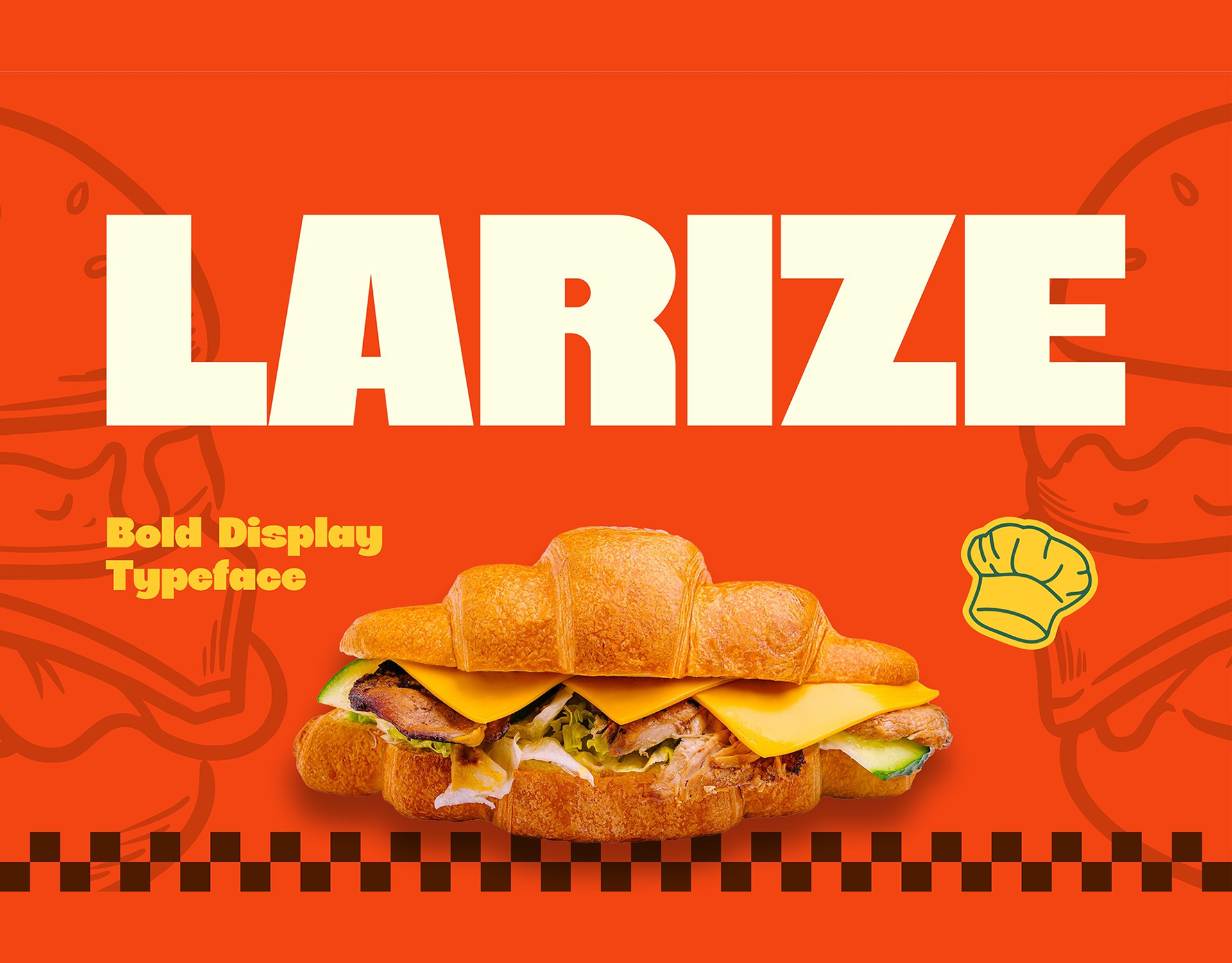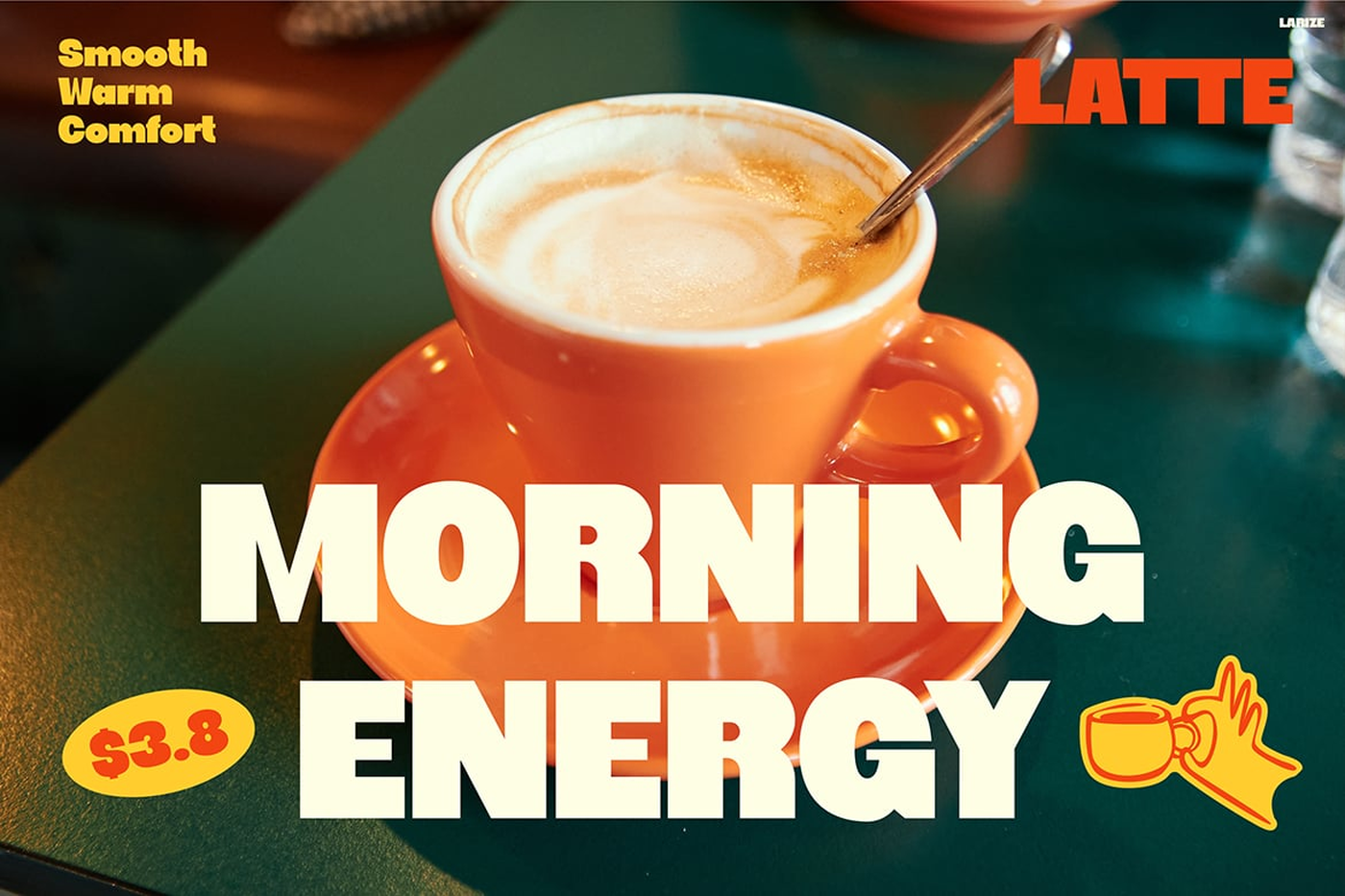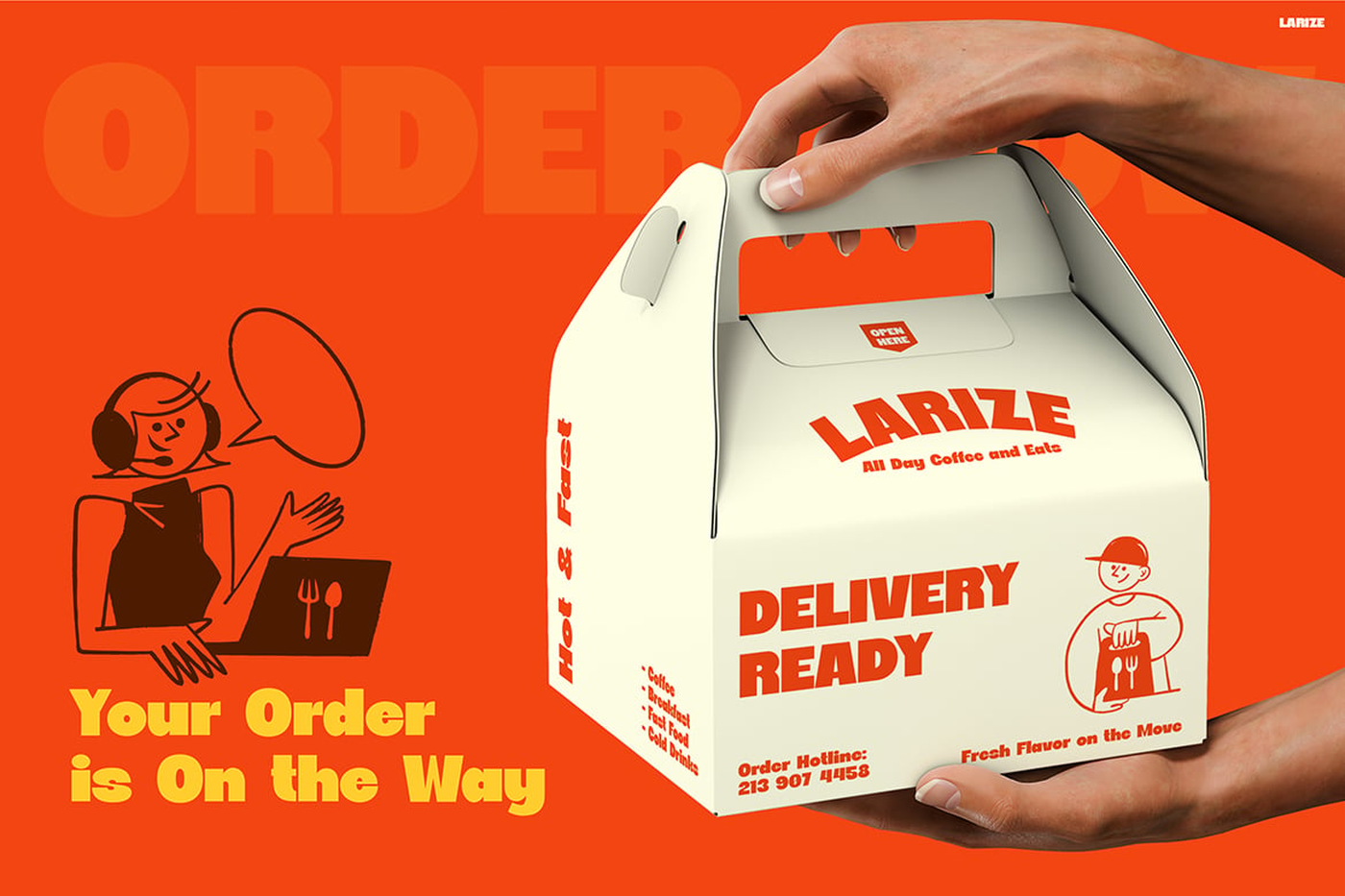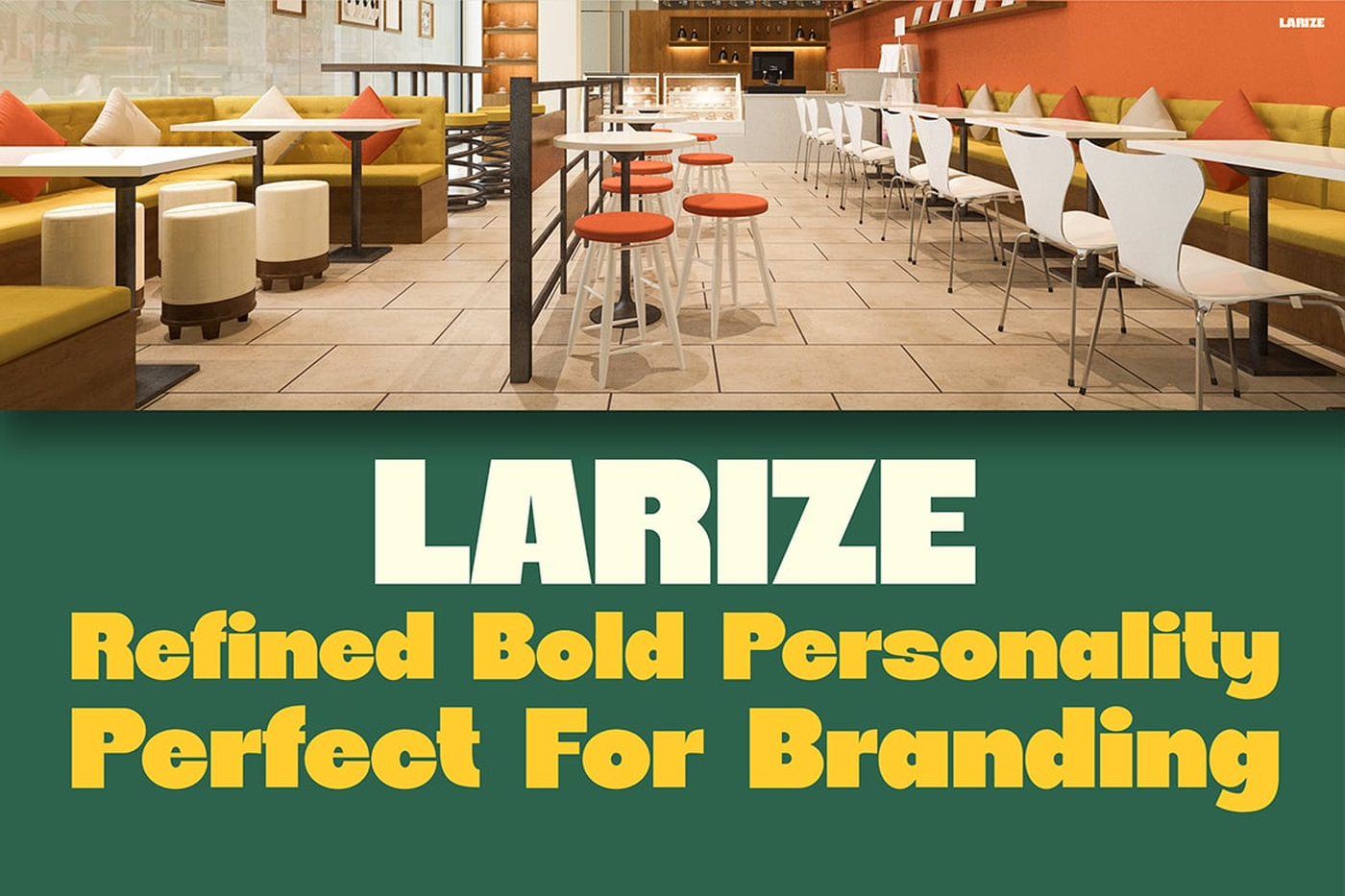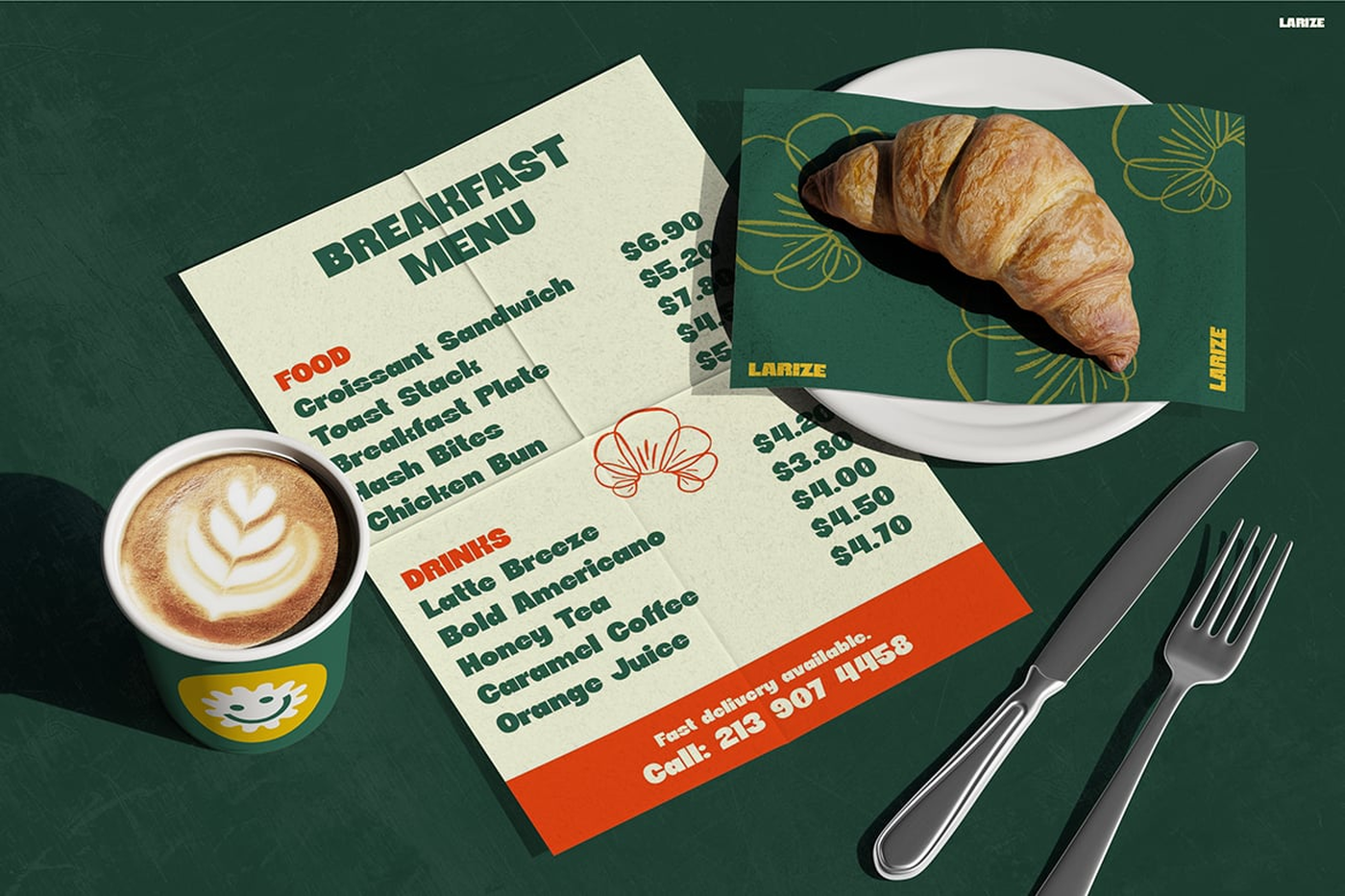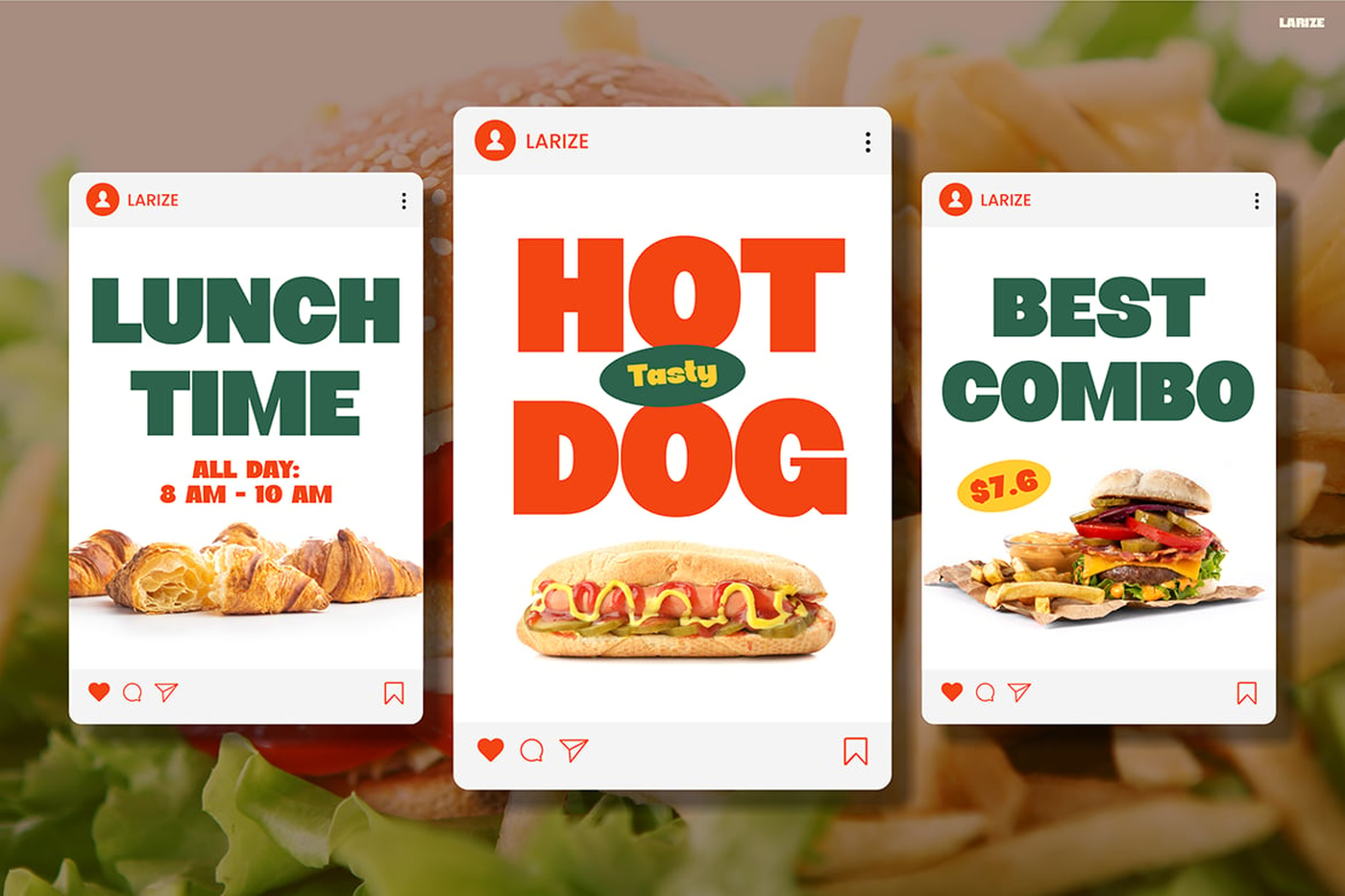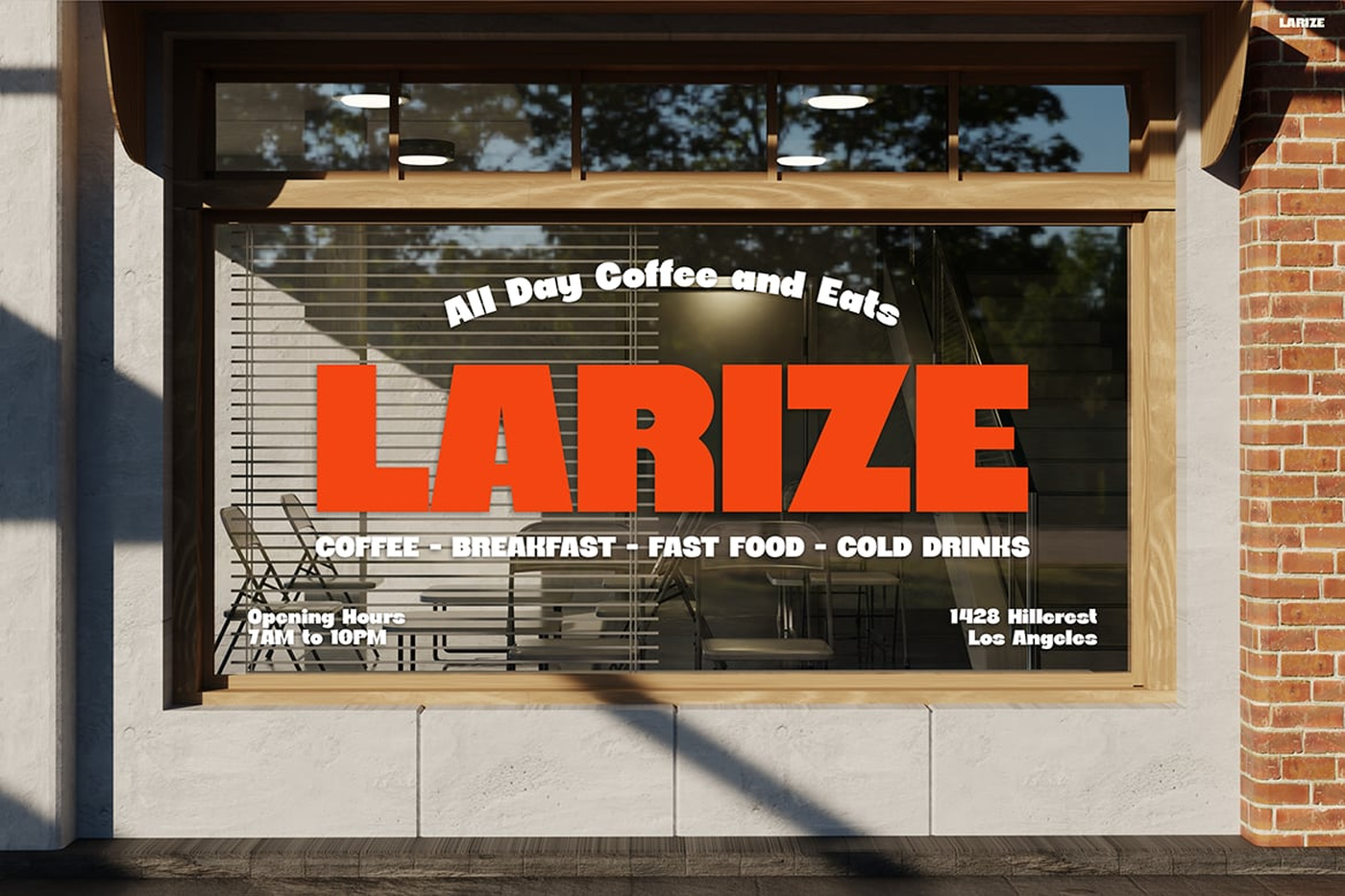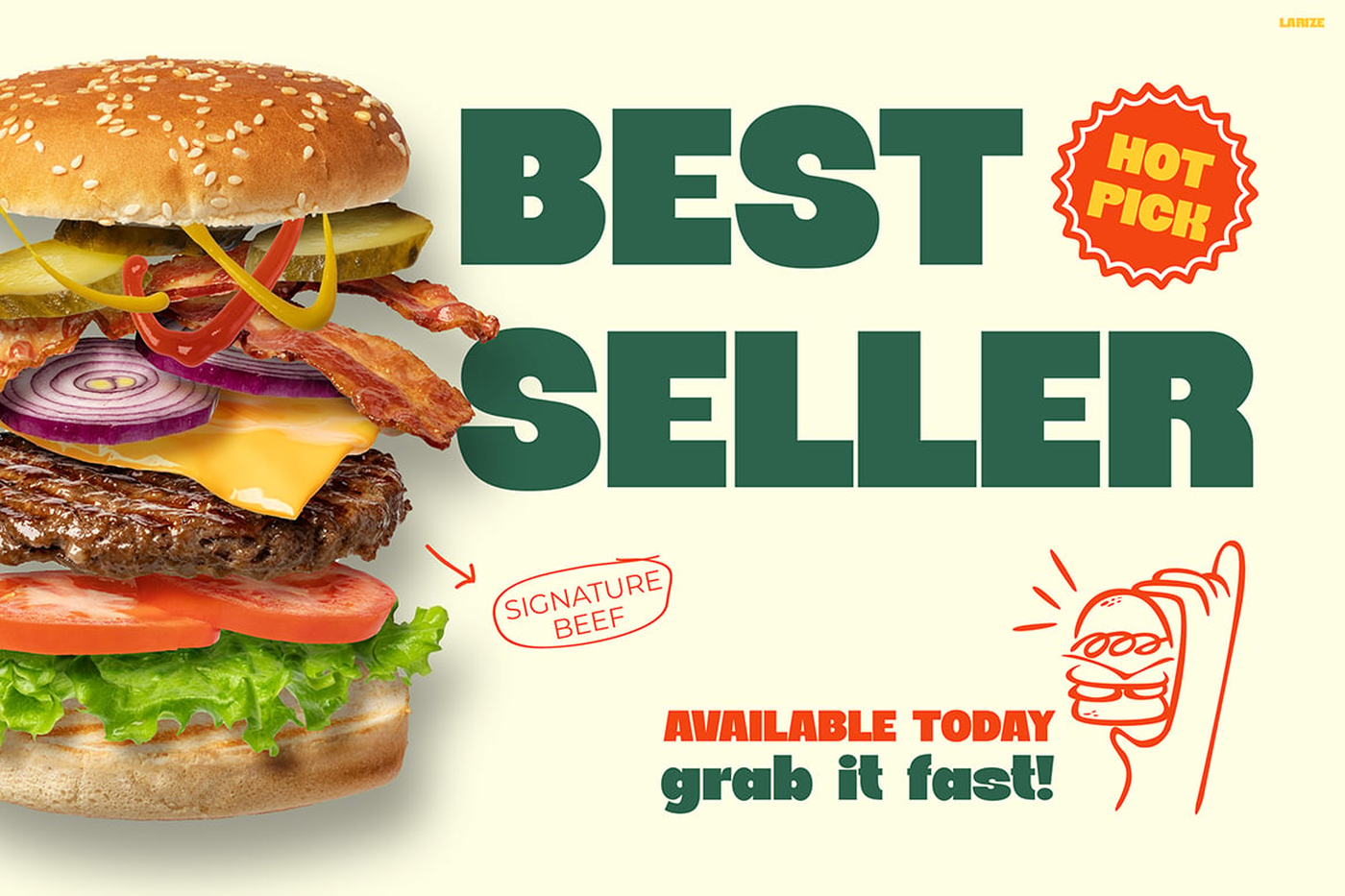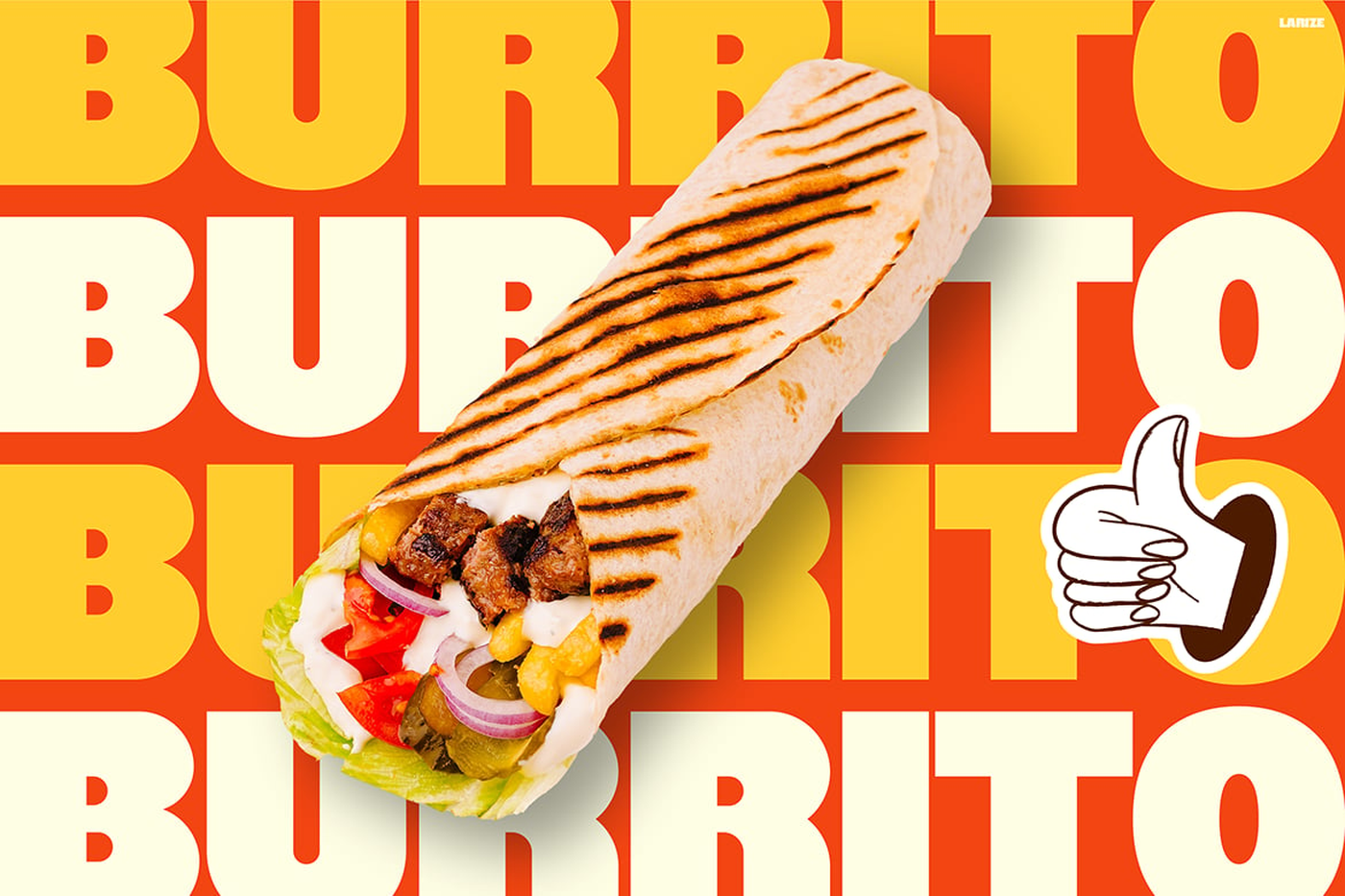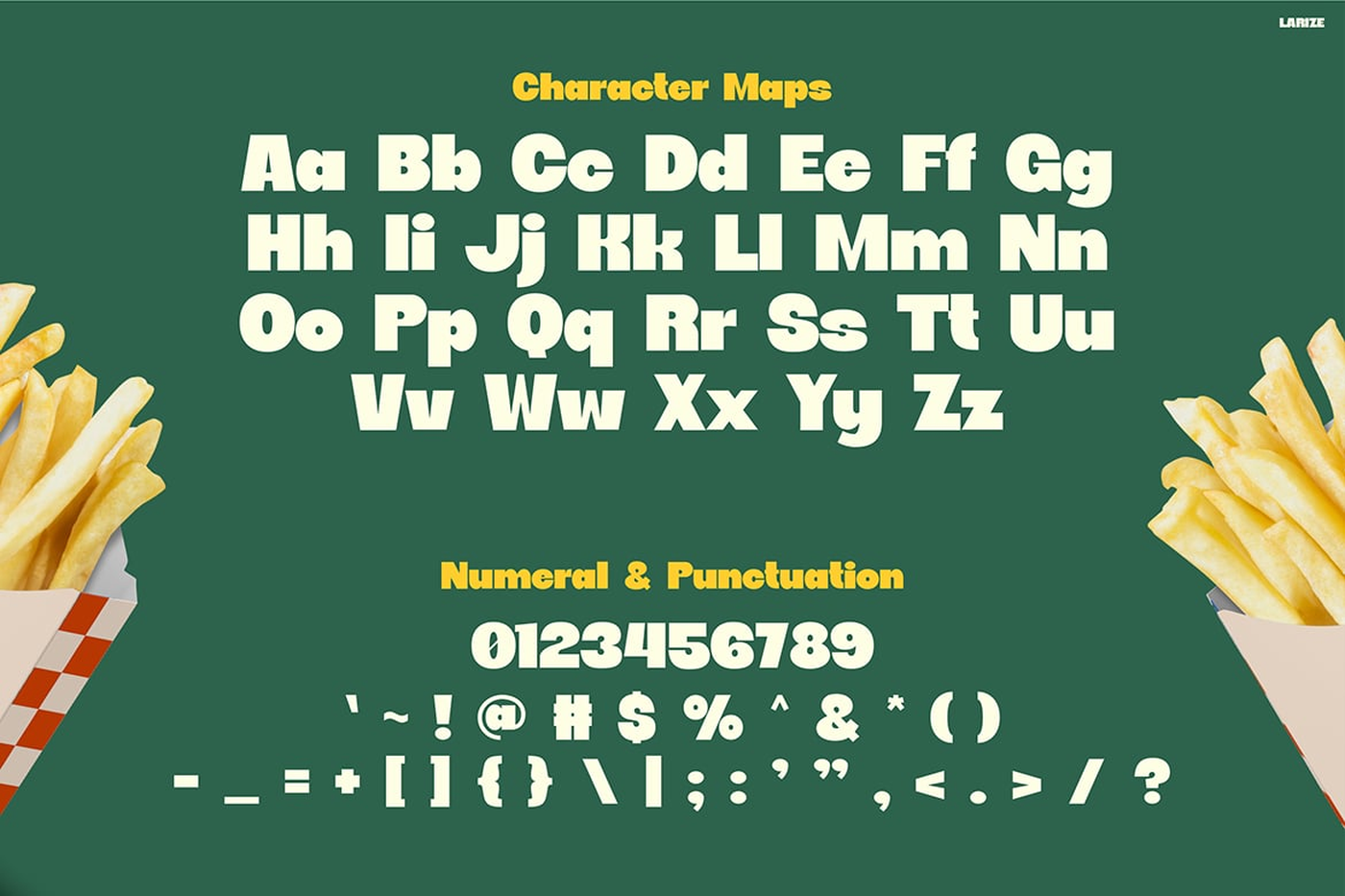
Larize - Bold Display Font
LARIZE is a bold display typeface designed for creators who need a long-tail visual solution for food branding and fast-paced marketing, combining thick geometric strokes with a confident, blocky structure that instantly commands attention. Its letterforms feature tight spacing, heavy proportions, and clean terminals, creating a visual voice that feels expressive, energetic, and delightfully punchy. Crafted for the world of restaurants, cafés, food trucks, and digital menus, LARIZE delivers a lively personality that blends playful shapes with high readability, making it ideal for branding, packaging, poster ads, and social media promotions. LARIZE thrives in environments where visuals must speak quickly and clearly. Its bold silhouette and tasty, appetizing vibe make it perfect for food posters, delivery adverts, editorial layouts, promo banners, and mobile app menus.
Font: Larize